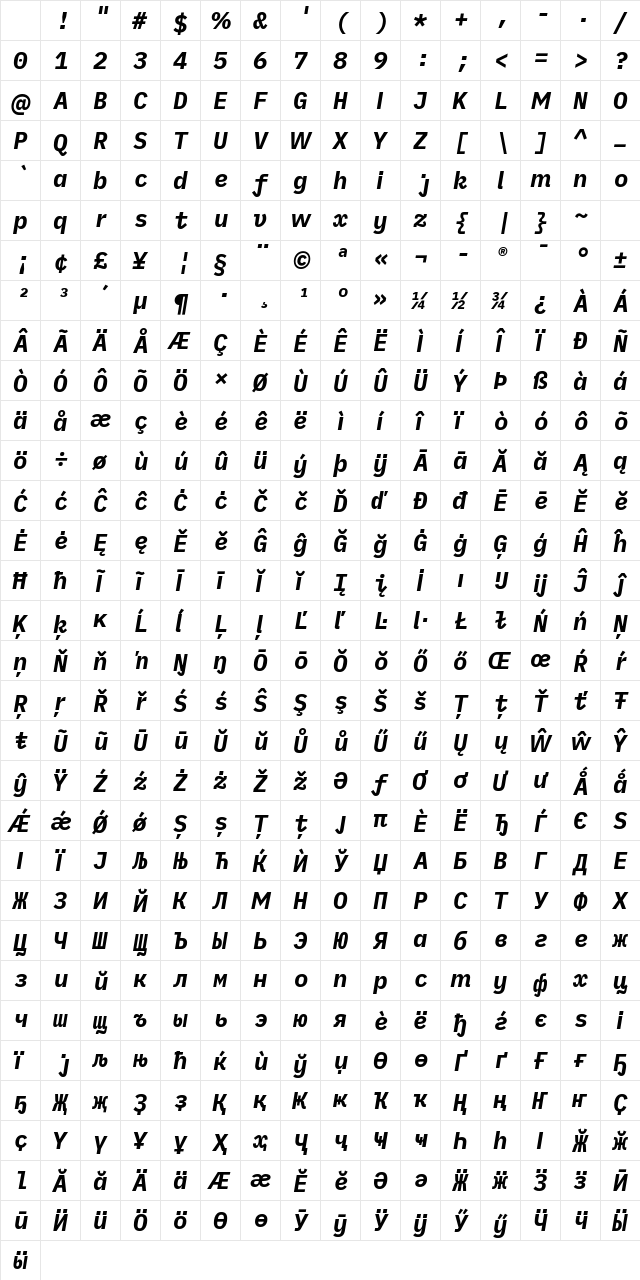
Complete iMWritingQuattroS Nerd Font Mono Bold Italic glyph index. Displaying only characters natively supported by iMWritingQuattroS Nerd Font Mono Bold Italic font.
iMWritingQuattroS Nerd Font Mono uses fixed-width spacing throughout, giving it the structured, systematic character associated with coding environments and technical documentation. The slanted form adds forward momentum and visual energy. Its bold stroke weight gives it real presence on the page.